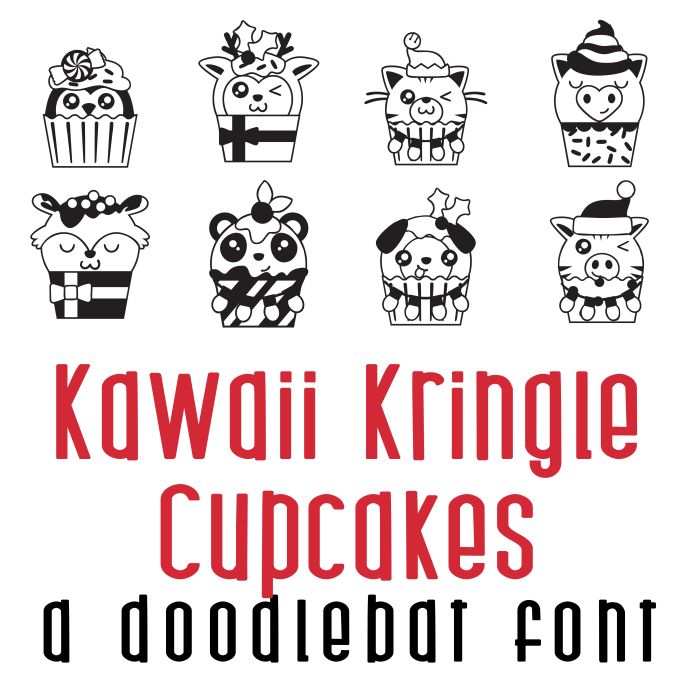
This adorable doodlebat font features 26 Christmas themed Kawaii-style animal cupcakes perfect for cards, crafts, gifts, planner stickers, classrooms, scrap book pages and more!